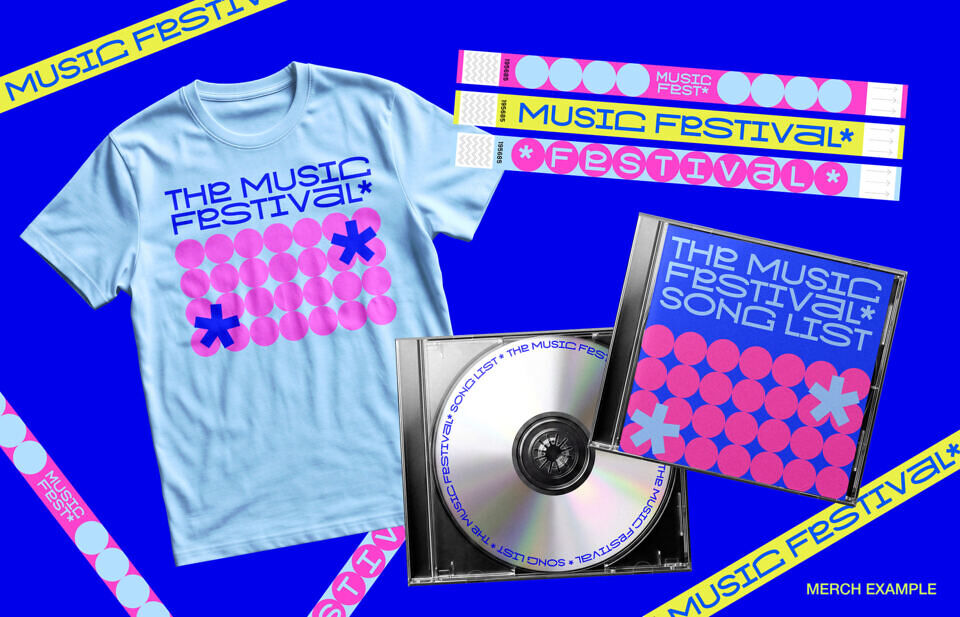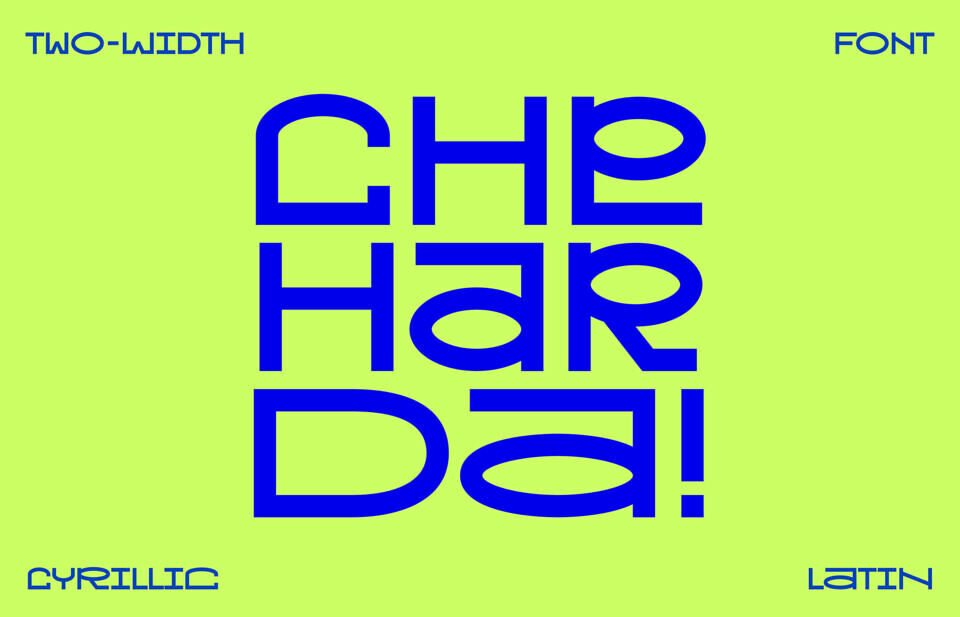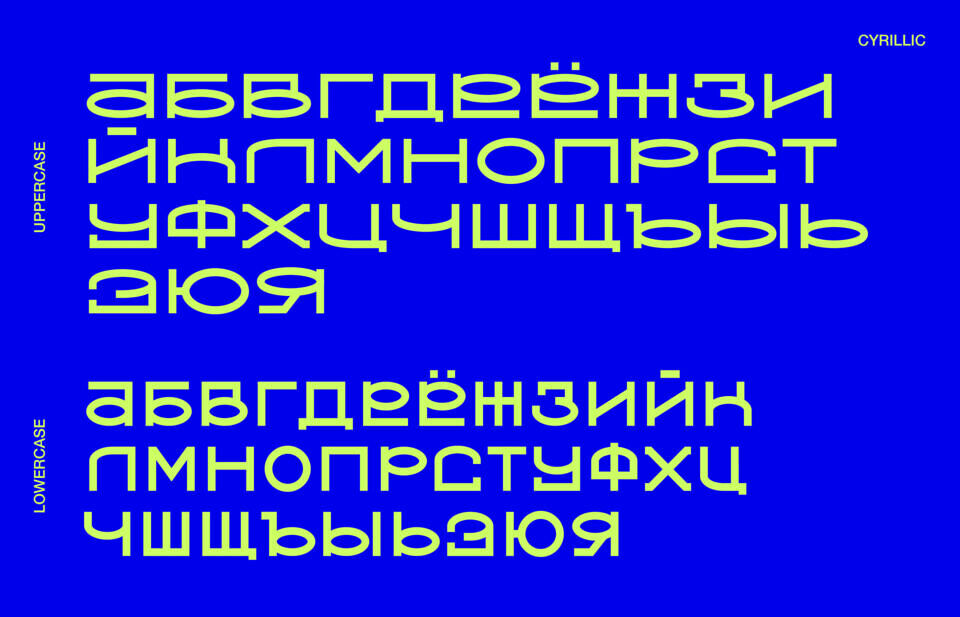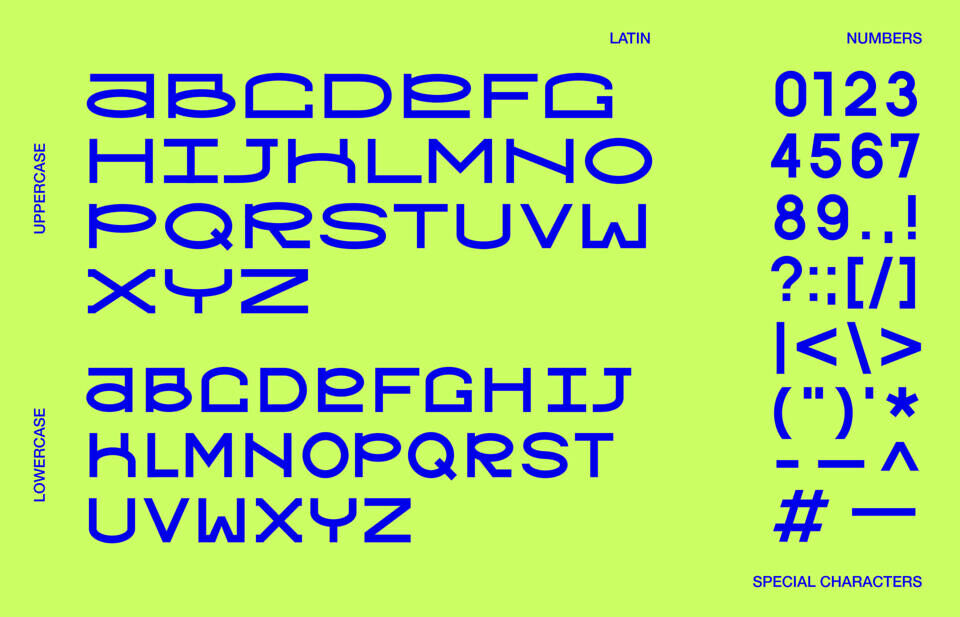
Cheharda Font
CHEHARDA is a display typeface without a distinction between uppercase and lowercase letters. Instead, each character exists in two width variations — narrow and wide. This approach makes it possible to create unique text rhythms and unconventio nal typographic compositions.
Geometric forms, smooth curves, and contrasting proportions give the typeface a contemporary and expressive character, making it well suited for visualidentities, posters, and experimental design.
Designed by: Elizaveta Khafizianova